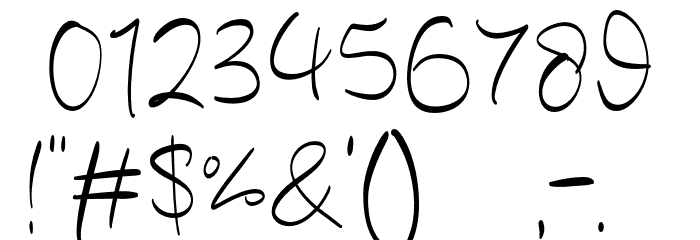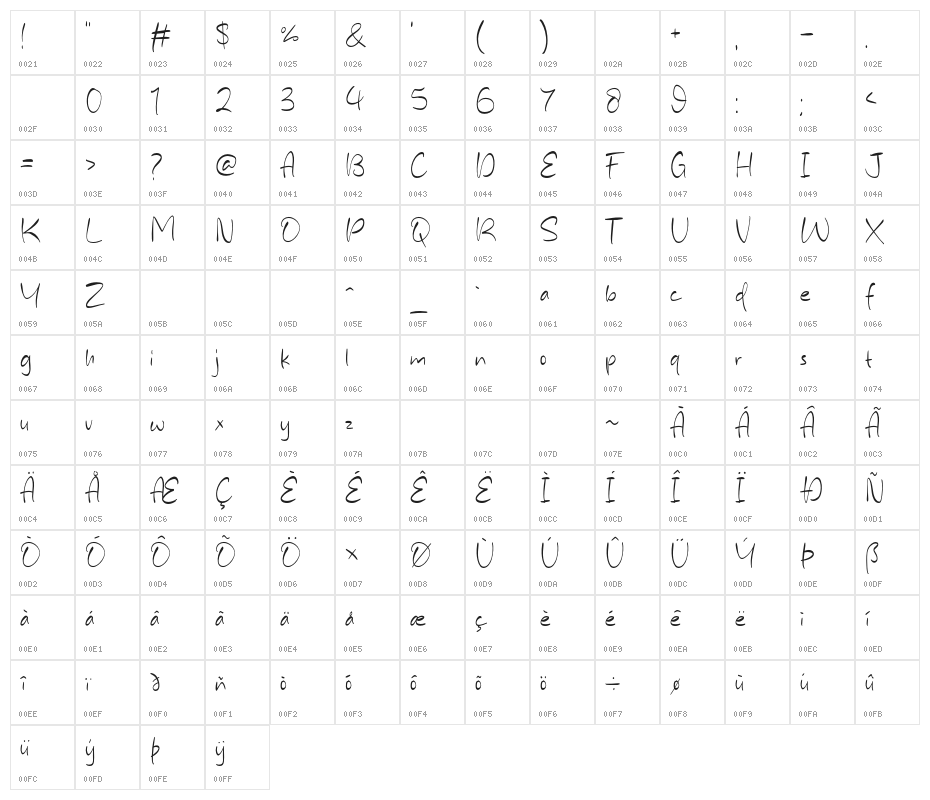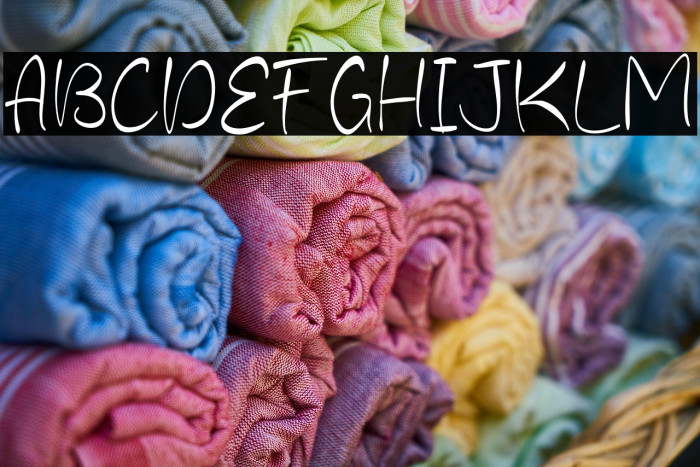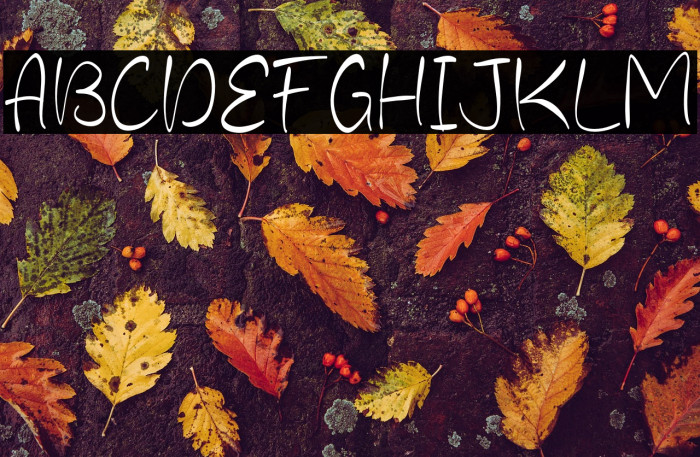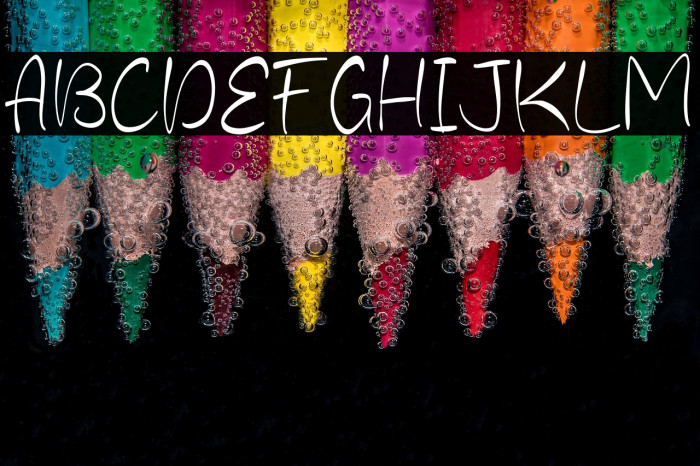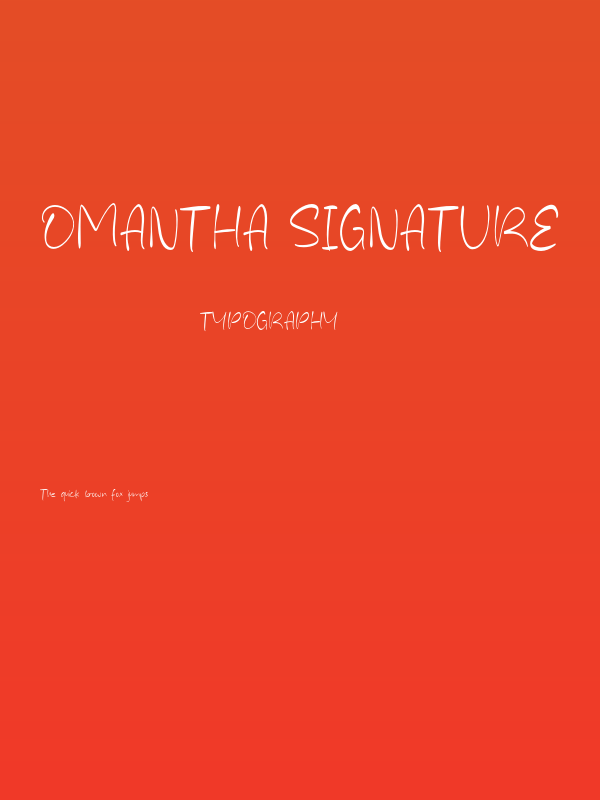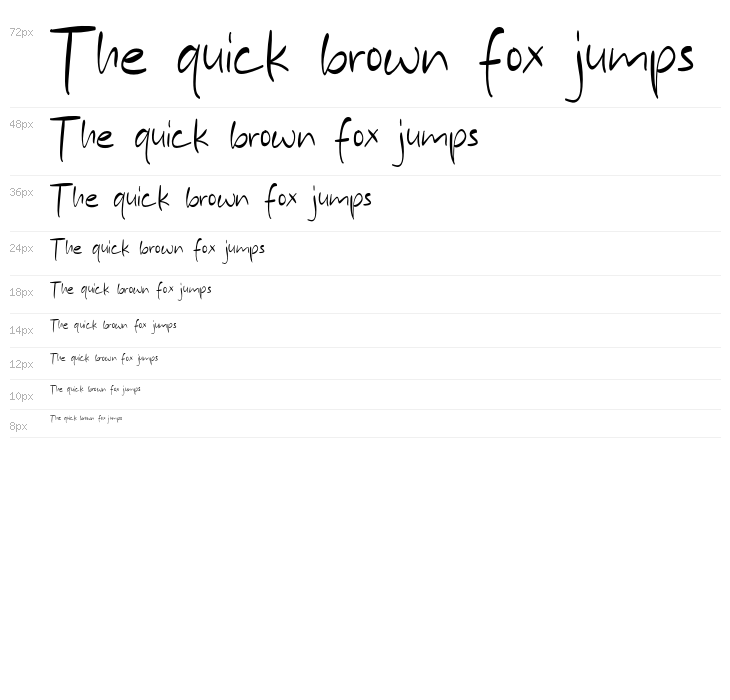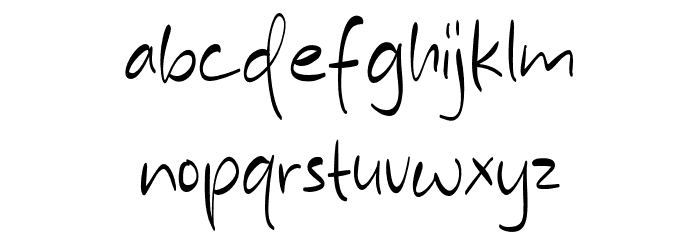
Omantha Signature Font
Omantha Signature Description
This font exudes a casual elegance with its fluid, handwritten style. The letters are gracefully connected, giving it a natural flow reminiscent of a personal signature. The uppercase characters maintain a consistent height, while the lowercase letters exhibit a slight variance, adding to the organic feel. The numerals are clear and easy to read, complementing the overall aesthetic. Special characters are thoughtfully designed, maintaining the cohesive look of the font. This style is perfect for projects that require a personal touch, such as invitations, greeting cards, or branding materials.
| Overall Style | Casual, Elegant |
| Use Case | Logos, Invitations, Greeting Cards |
| Proposed Projects | Ideal for invitations, greeting cards, branding, and any project requiring a personal, elegant touch. |